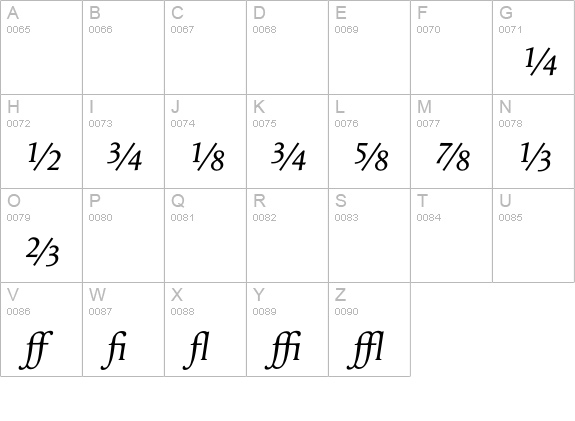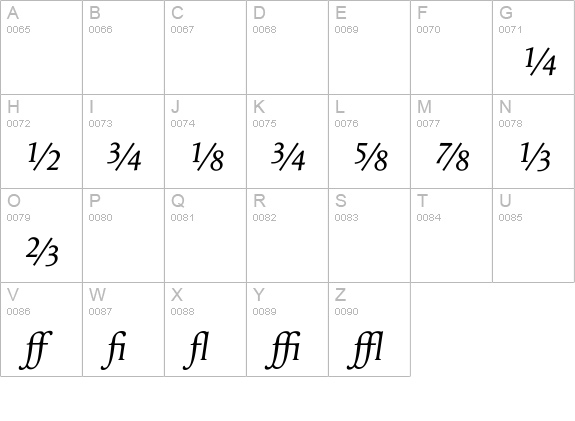
ApollineExp-Italic Font Details
ApollineExp-Italic is a distinctive, italic variant in the ApollineExp typeface family \xE2\x80\x94 well suited to design and typography projects.
ApollineExp-Italic font is a visually stunning typeface that exudes elegance and sophistication. Its sleek and modern design is perfect for adding a touch of class to any project. The italicized style of this font lends a sense of dynamism and movement, making it ideal for use in headings, titles, and other prominent text elements. What sets ApollineExp-Italic font apart is not just its aesthetic appeal, but also its versatility. Whether you are creating a high-end fashion magazine, a luxury brand logo, or a stylish wedding invitation, this font will elevate your design to the next level. The best part? ApollineExp-Italic font is completely free to download at FontsMarket.com. Yes, you read that right – this premium font is available at no cost, allowing you to enhance your projects without breaking the bank. Don't miss out on this amazing opportunity to elevate your design game with ApollineExp-Italic font. Download it now and let your creativity shine!